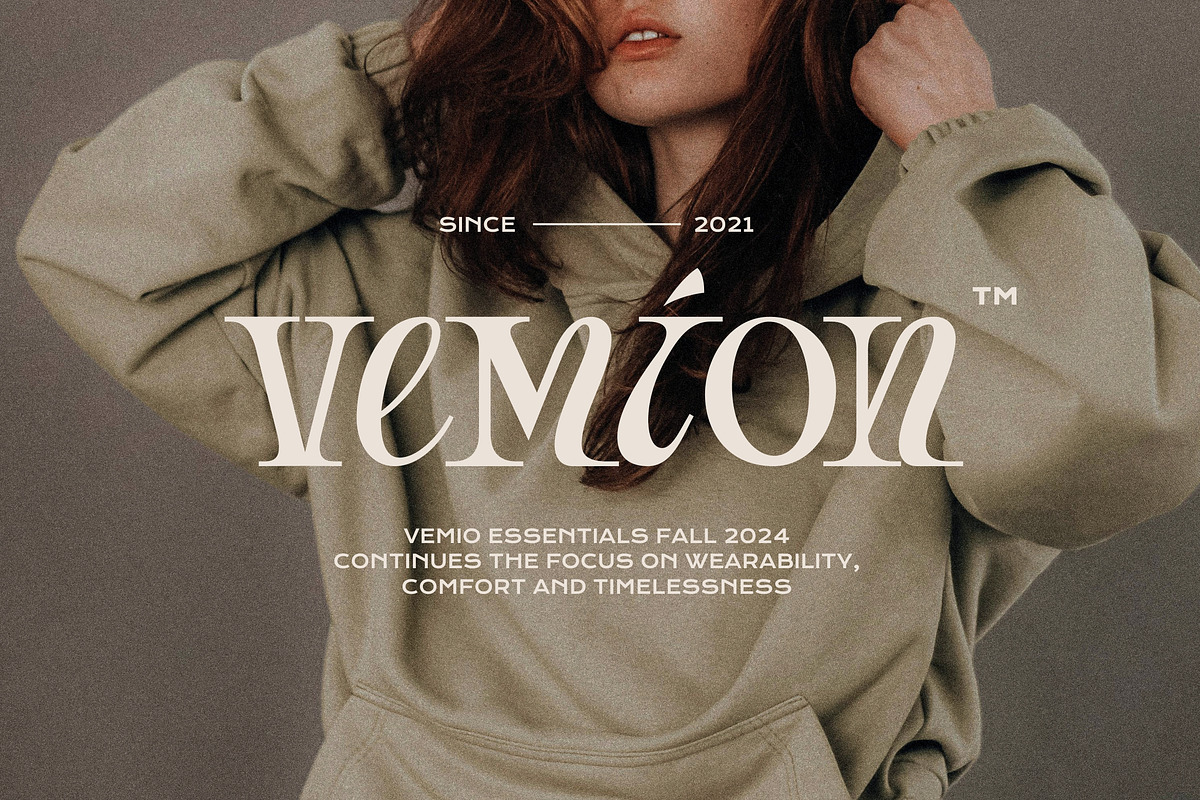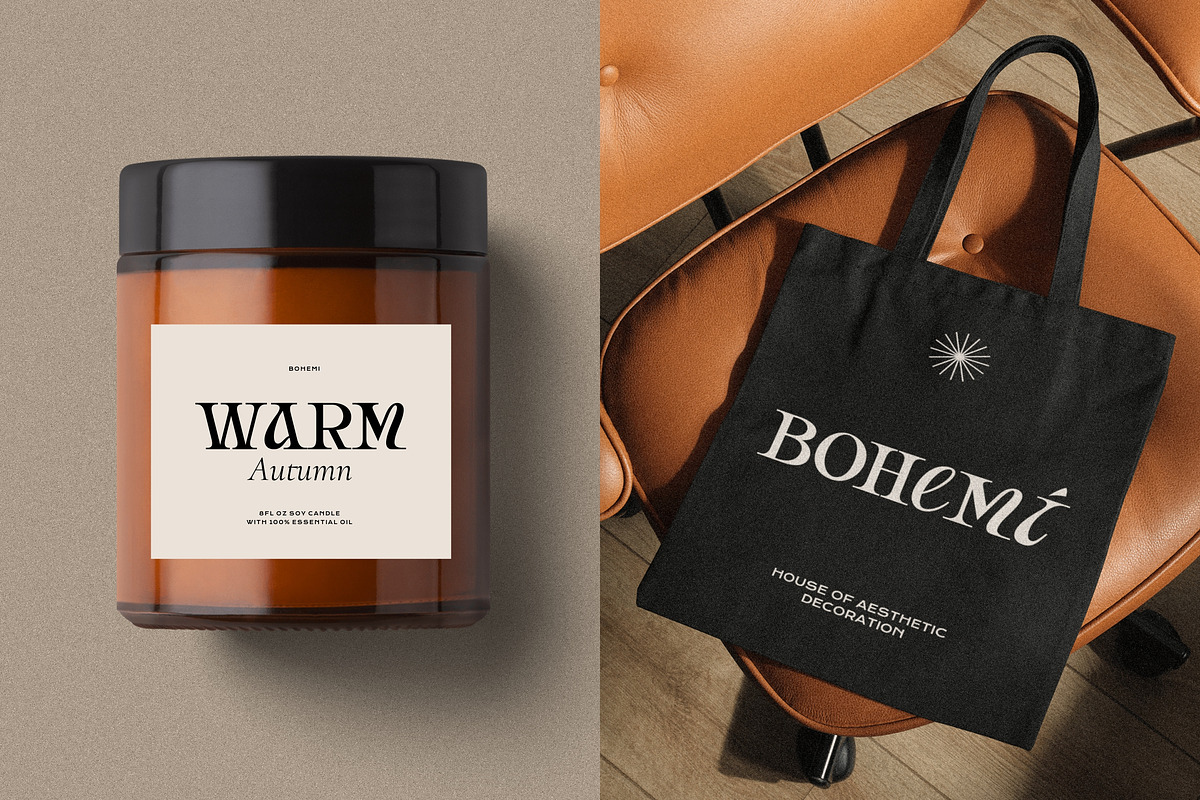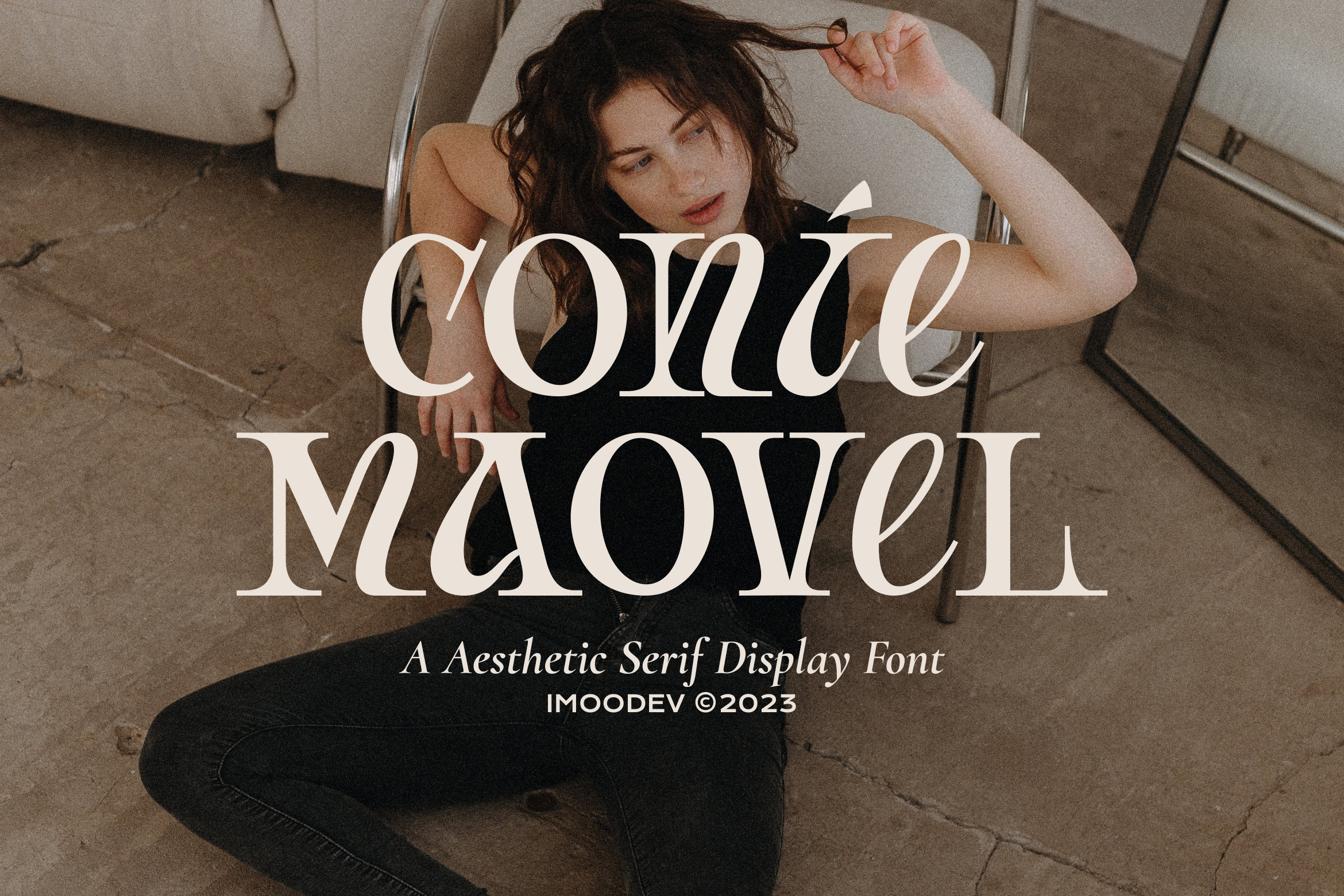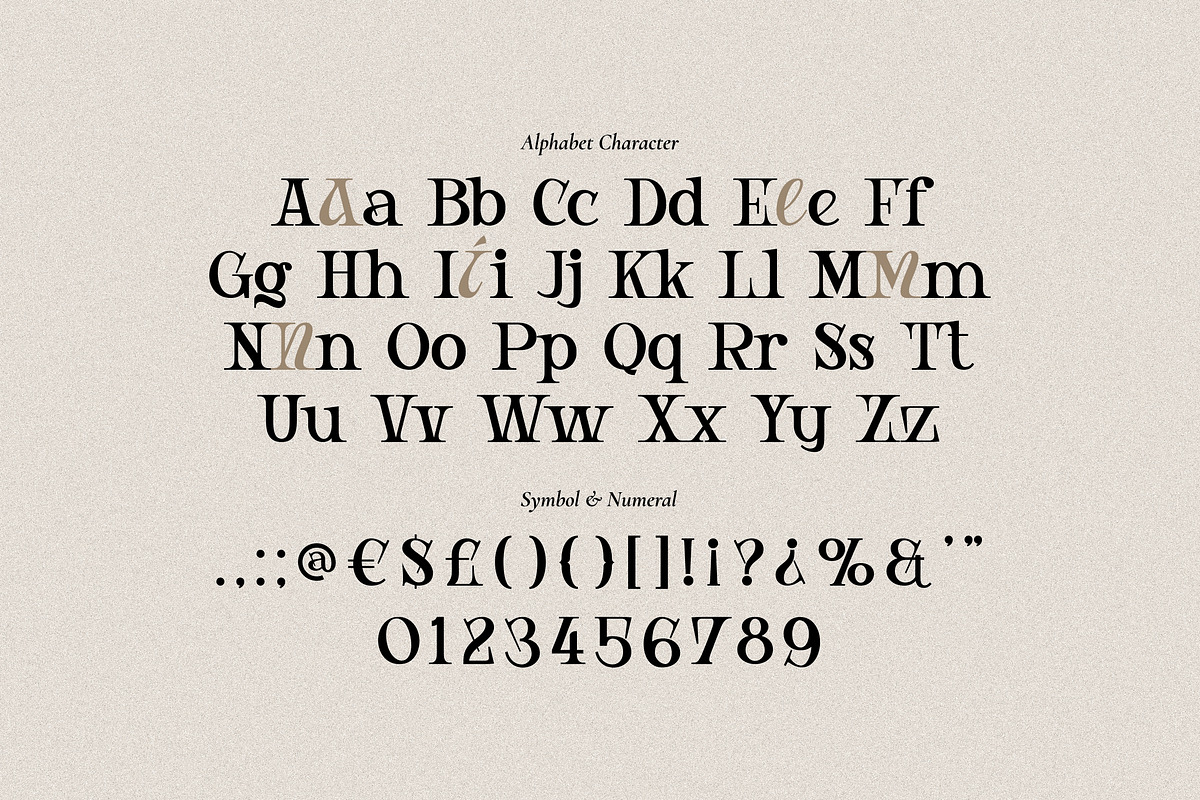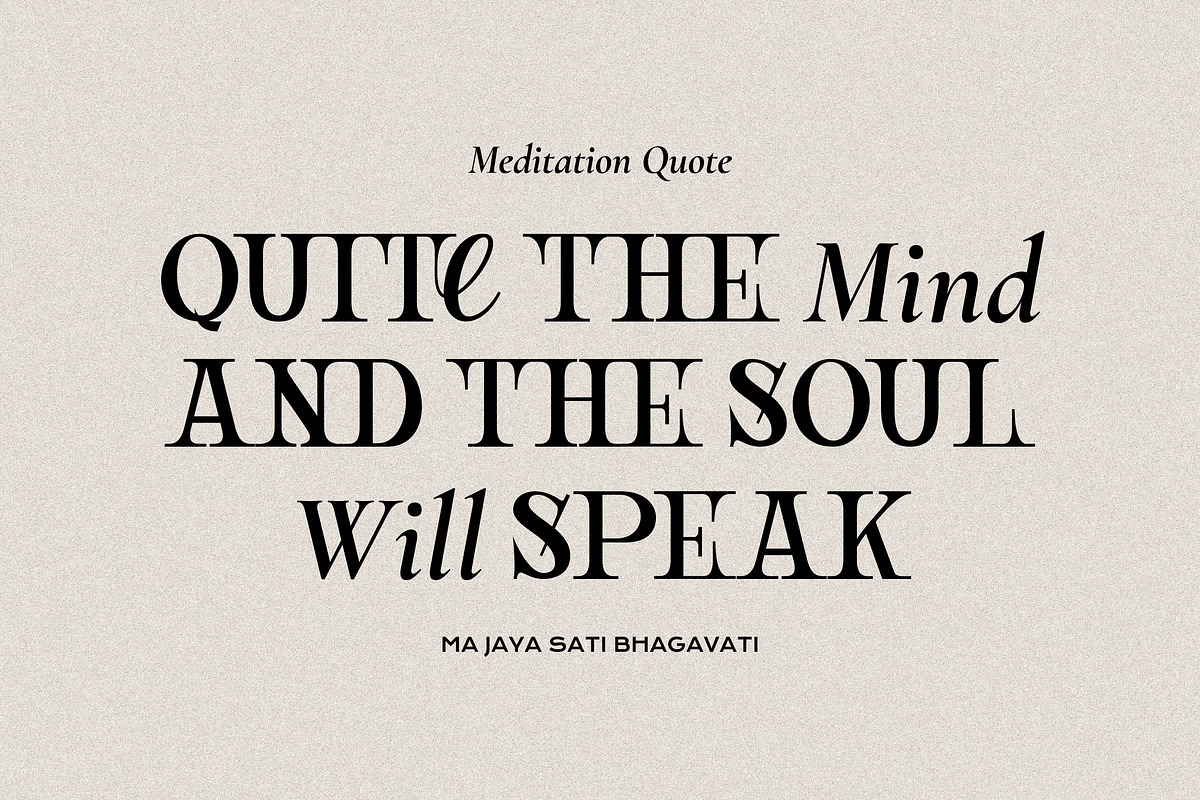
Conie Maovel - Elegant Serif Font
Conie Maovel is a elegant serif font that seamlessly blends beauty and a feminine touch, infusing a sense of class and contemporary sophistication. Its graceful lines and modern aesthetic make it the perfect choice for projects seeking a balance of elegance and modernity and smooth curves every lettering a can embodies charm in, making your work look stunning and attractive.
A versatile font that works in both uppercase and lowercase sizes, suitable for a wide variety of projects such as a display font for headings, invitations, branding, book covers, magazine layouts, wedding, product packaging, product mockup, signature, posters, labels, editorials, art deco, and any type of advertising purpose.